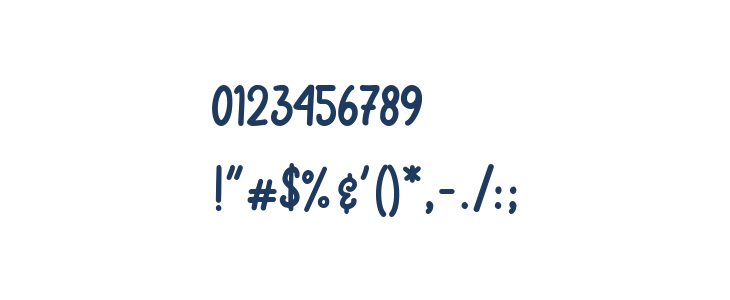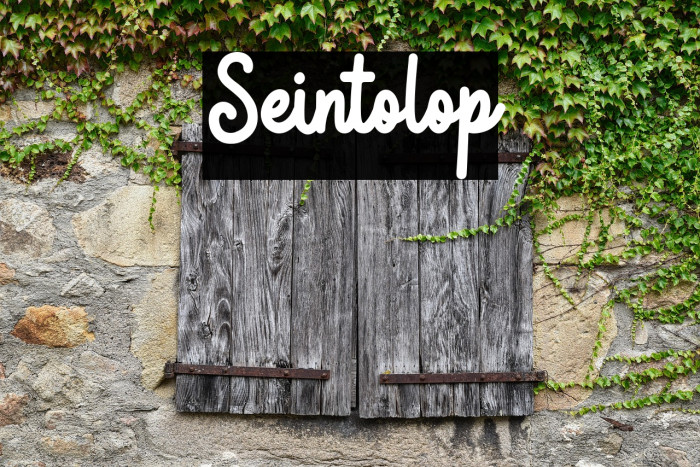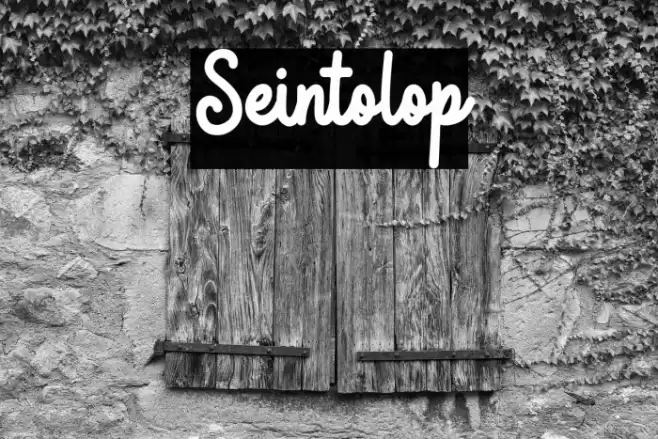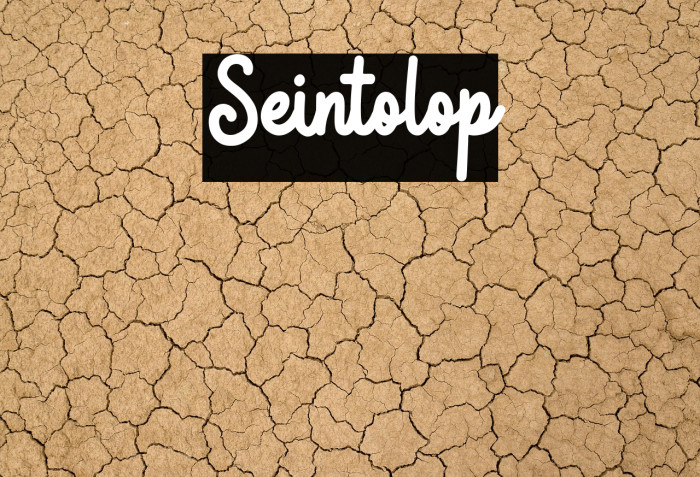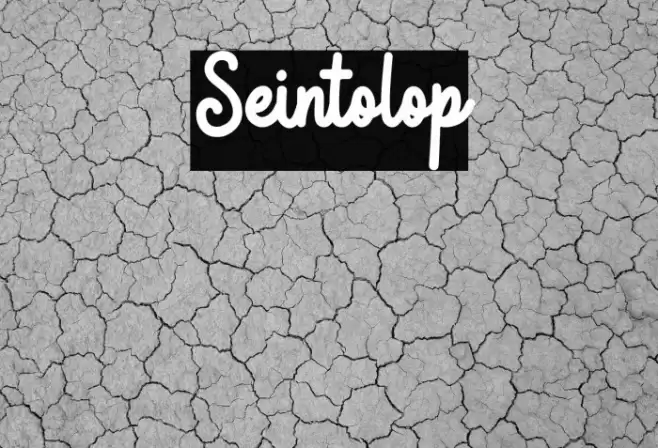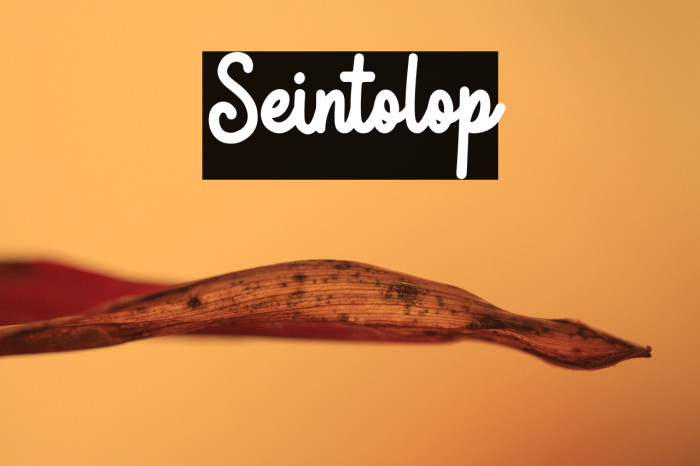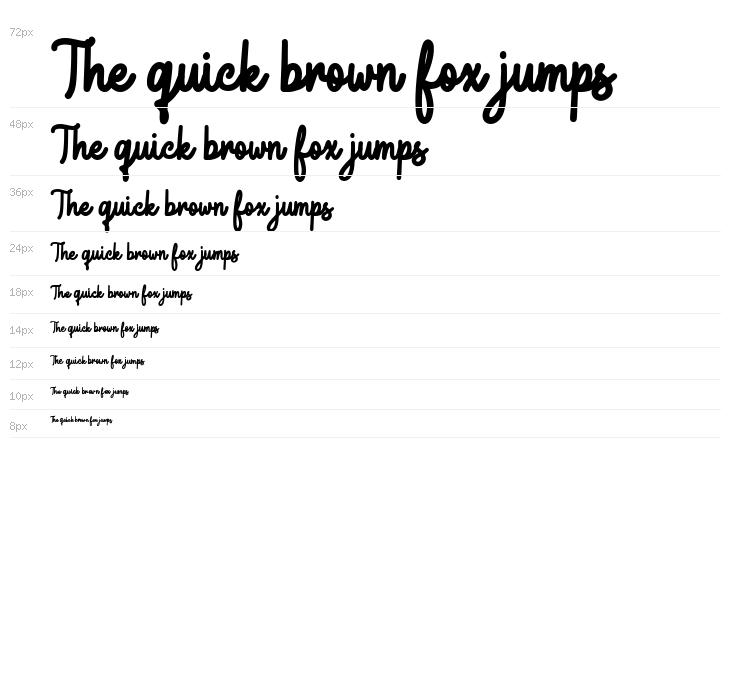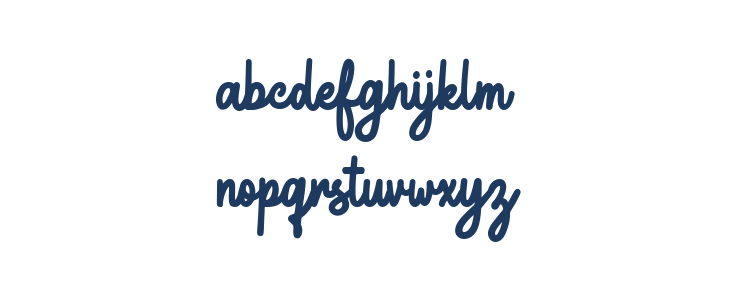
Seintolop Font
Seintolop Description
This font features a playful and casual script style with a handwritten appearance. The letters are bold and rounded, giving a friendly and approachable feel. The uppercase letters are slightly taller than the lowercase, maintaining a consistent flow throughout. The numbers and special characters are designed to match the overall style, ensuring a cohesive look. The strokes are smooth and continuous, adding to the handwritten effect. This font is versatile, suitable for a variety of creative projects where a personal touch is desired.
| Use Case | Logos, Invitations, Social media graphics |
| Proposed Projects | Ideal for greeting cards, invitations, logos, and social media graphics. |